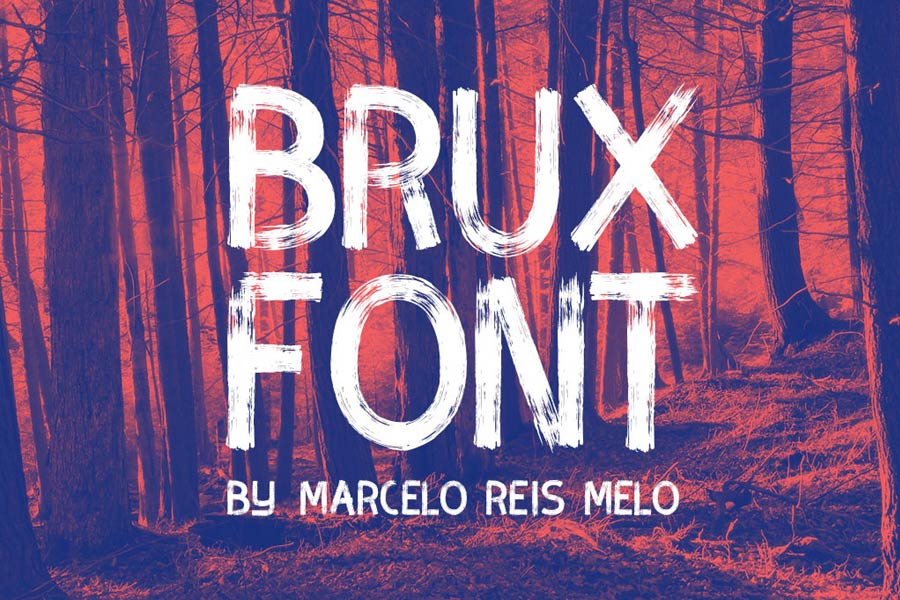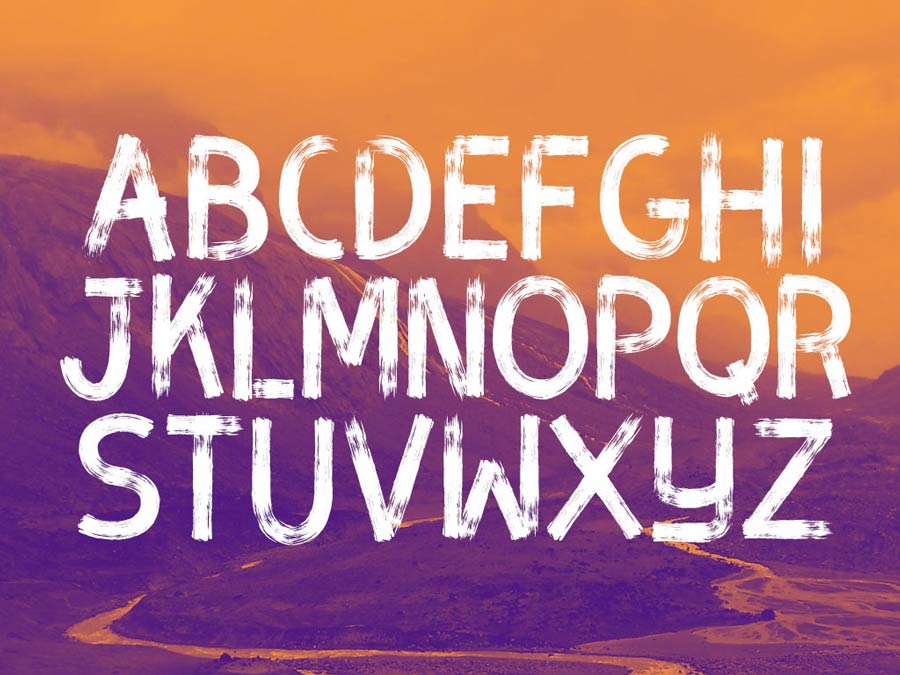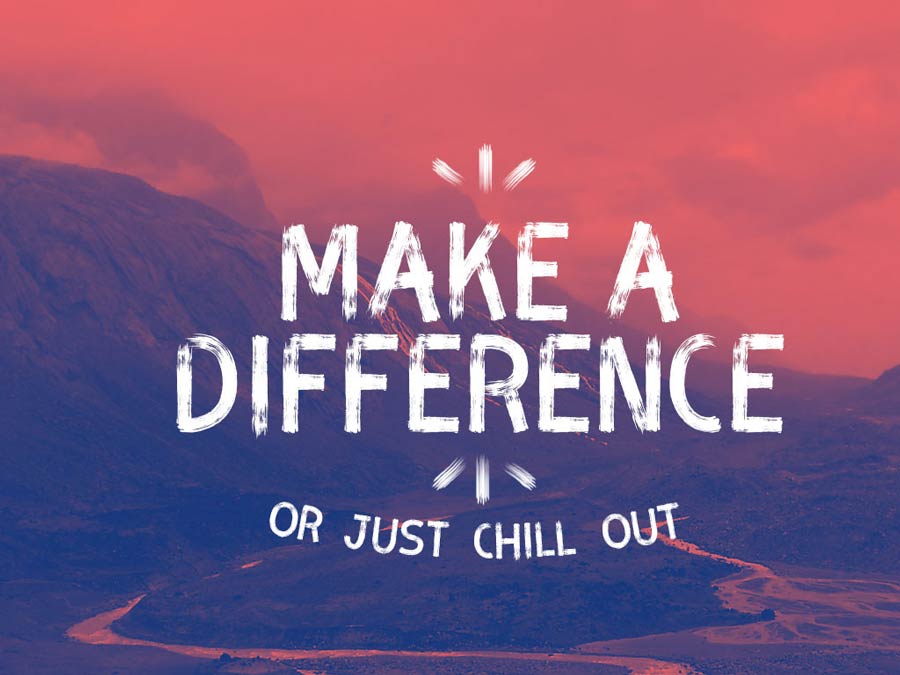
Brux Bold Brush Font is a font that you will use to get maximum attention from the audience. This uppercase-only free font, has powerful yet tidy brush strokes that formed the characters. Besides the latin characters, it also supports Swedish, German and Spanish characters
- Designer: Marcelo Reis Melo
- Category: Calligraphy/Brush, Web Font